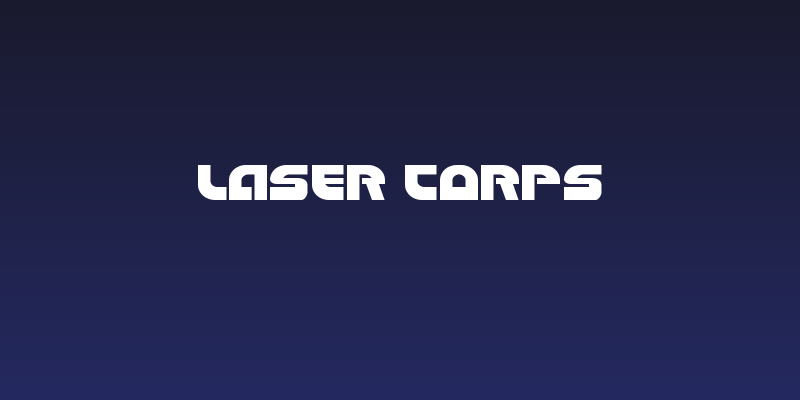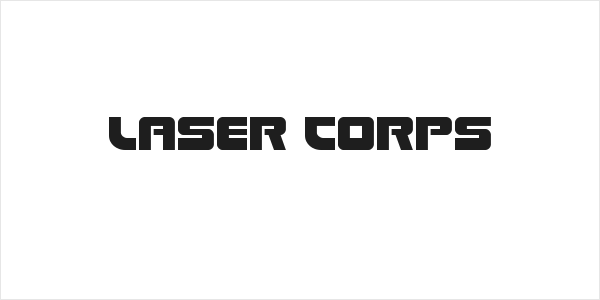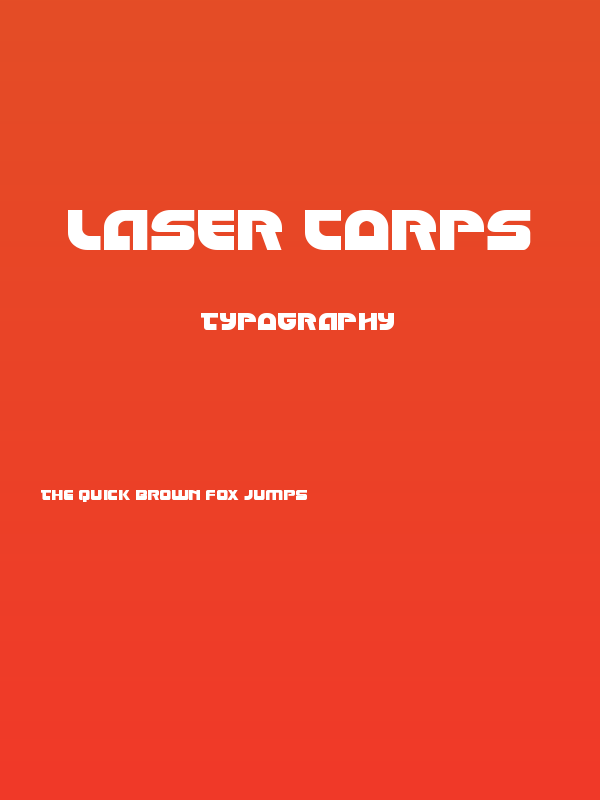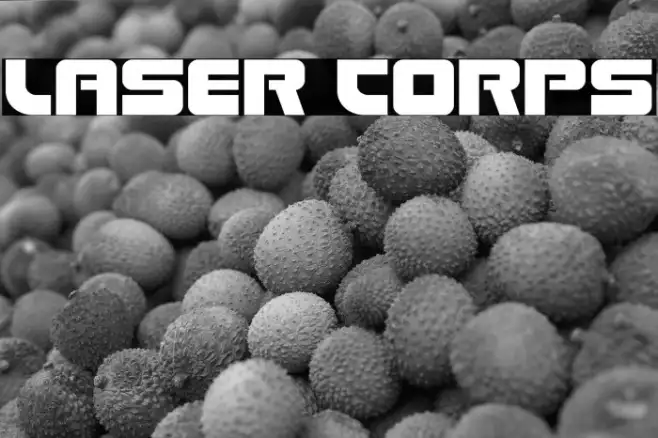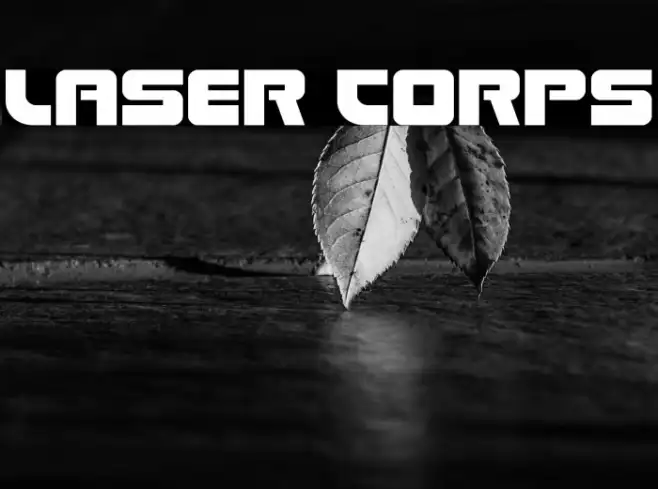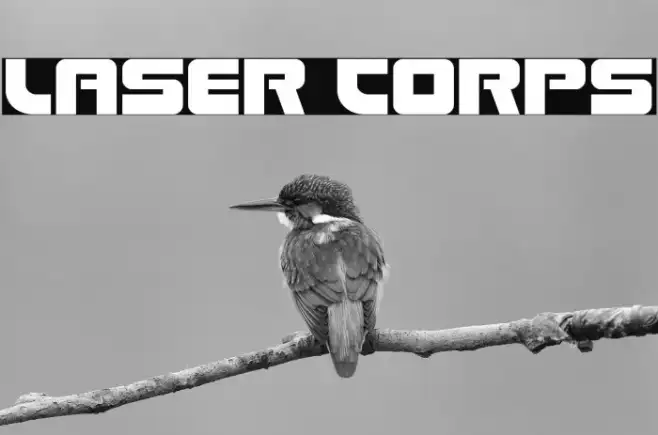
Laser Corps Font
Laser Corps Description
This font features a bold and futuristic design, characterized by its geometric shapes and strong presence. The letters are constructed with thick strokes and a blocky appearance, giving it a robust and industrial feel. The angular cuts and sharp edges contribute to its modern aesthetic, making it suitable for technology-themed projects. The uniformity in stroke width across characters ensures a cohesive look, while the slightly condensed letterforms add to its compact and efficient style. The numerals and special characters maintain the same bold and structured design, ensuring consistency throughout the typeface.
| Proposed Projects | Ideal for technology branding, video game titles, sci-fi posters, and modern product packaging. |